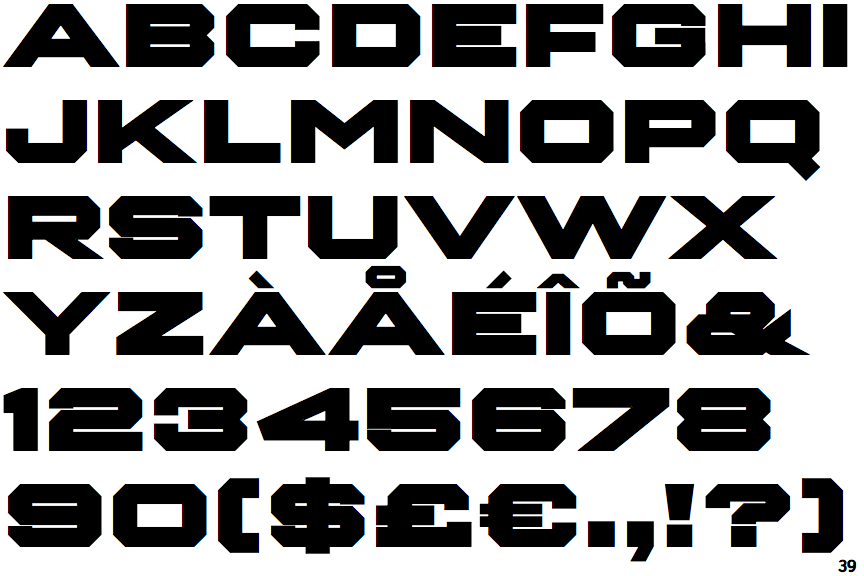
Winner Sans Extended Black Font Free Download - About winner sans extended font free download. Winner sans extended black otf (900) font. Its extensive character set also contains currency. This is a sans serif font with a strong,. Web january 14, 2023.
Its extensive character set also contains currency. This is a sans serif font with a strong,. Winner sans extended black otf (900) font. About winner sans extended font free download. Web january 14, 2023.
About winner sans extended font free download. Winner sans extended black otf (900) font. This is a sans serif font with a strong,. Web january 14, 2023. Its extensive character set also contains currency.
This is a sans serif font with a strong,. Web january 14, 2023. Its extensive character set also contains currency. About winner sans extended font free download. Winner sans extended black otf (900) font.
This is a sans serif font with a strong,. About winner sans extended font free download. Winner sans extended black otf (900) font. Web january 14, 2023. Its extensive character set also contains currency.
Winner sans extended black otf (900) font. Web january 14, 2023. About winner sans extended font free download. This is a sans serif font with a strong,. Its extensive character set also contains currency.
Winner sans extended black otf (900) font. Web january 14, 2023. About winner sans extended font free download. Its extensive character set also contains currency. This is a sans serif font with a strong,.
About winner sans extended font free download. Web january 14, 2023. Winner sans extended black otf (900) font. Its extensive character set also contains currency. This is a sans serif font with a strong,.
Its extensive character set also contains currency. Web january 14, 2023. Winner sans extended black otf (900) font. This is a sans serif font with a strong,. About winner sans extended font free download.
About winner sans extended font free download. Winner sans extended black otf (900) font. Its extensive character set also contains currency. This is a sans serif font with a strong,. Web january 14, 2023.
Its extensive character set also contains currency. This is a sans serif font with a strong,. Web january 14, 2023. About winner sans extended font free download. Winner sans extended black otf (900) font.
This is a sans serif font with a strong,. About winner sans extended font free download. Winner sans extended black otf (900) font. Its extensive character set also contains currency. Web january 14, 2023.
Web january 14, 2023. Winner sans extended black otf (900) font. This is a sans serif font with a strong,. Its extensive character set also contains currency.